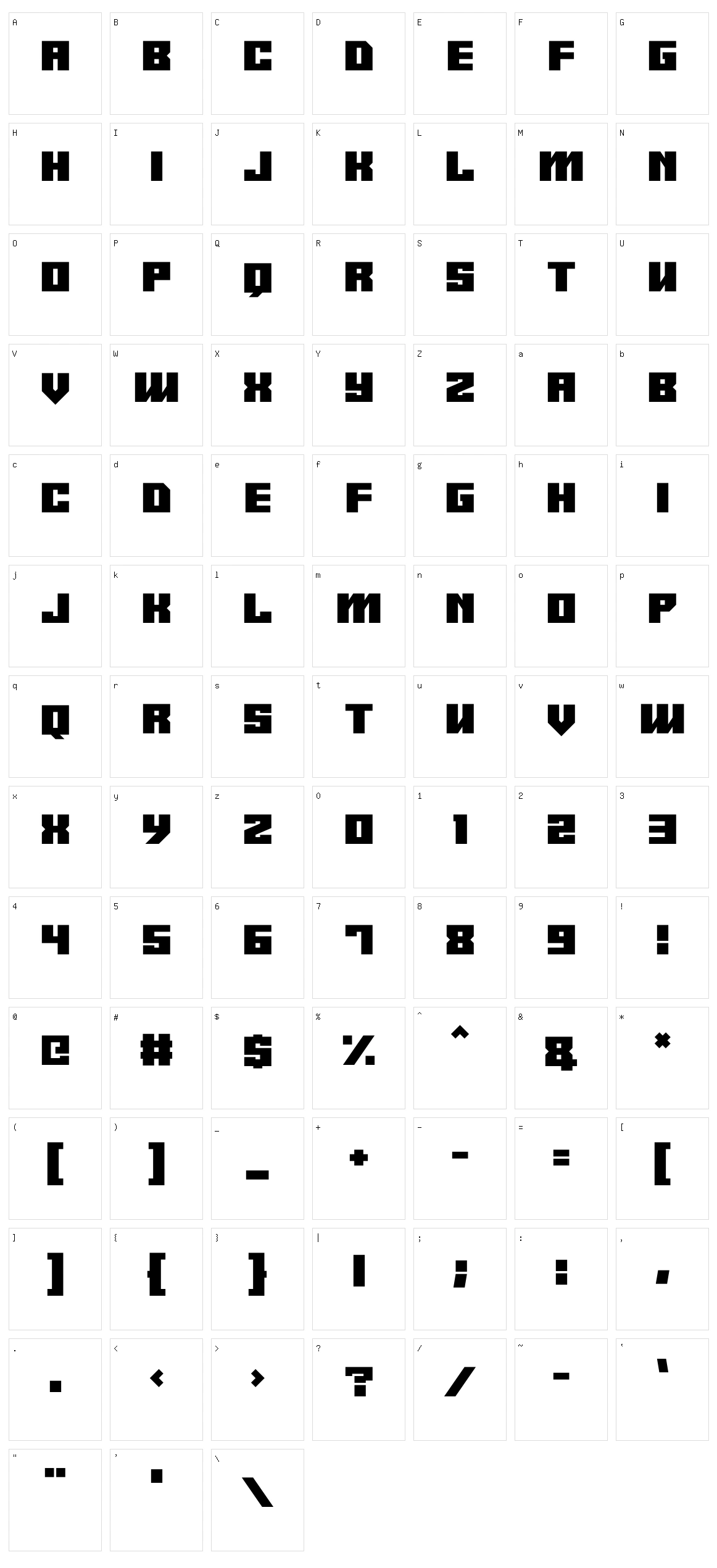
The free font Android y is carefully designed by Hawtpixel, showcasing a thoughtful balance of creativity and usability and falls under the Square font style. When you download the ZIP file, it contains only 16.15 KB of font files, making it lightweight and quick to download. Please review the license details below to understand permitted usage and distribution rights. If license information is not available, we recommend using this font for personal projects only or contacting the author directly for commercial usage permissions.